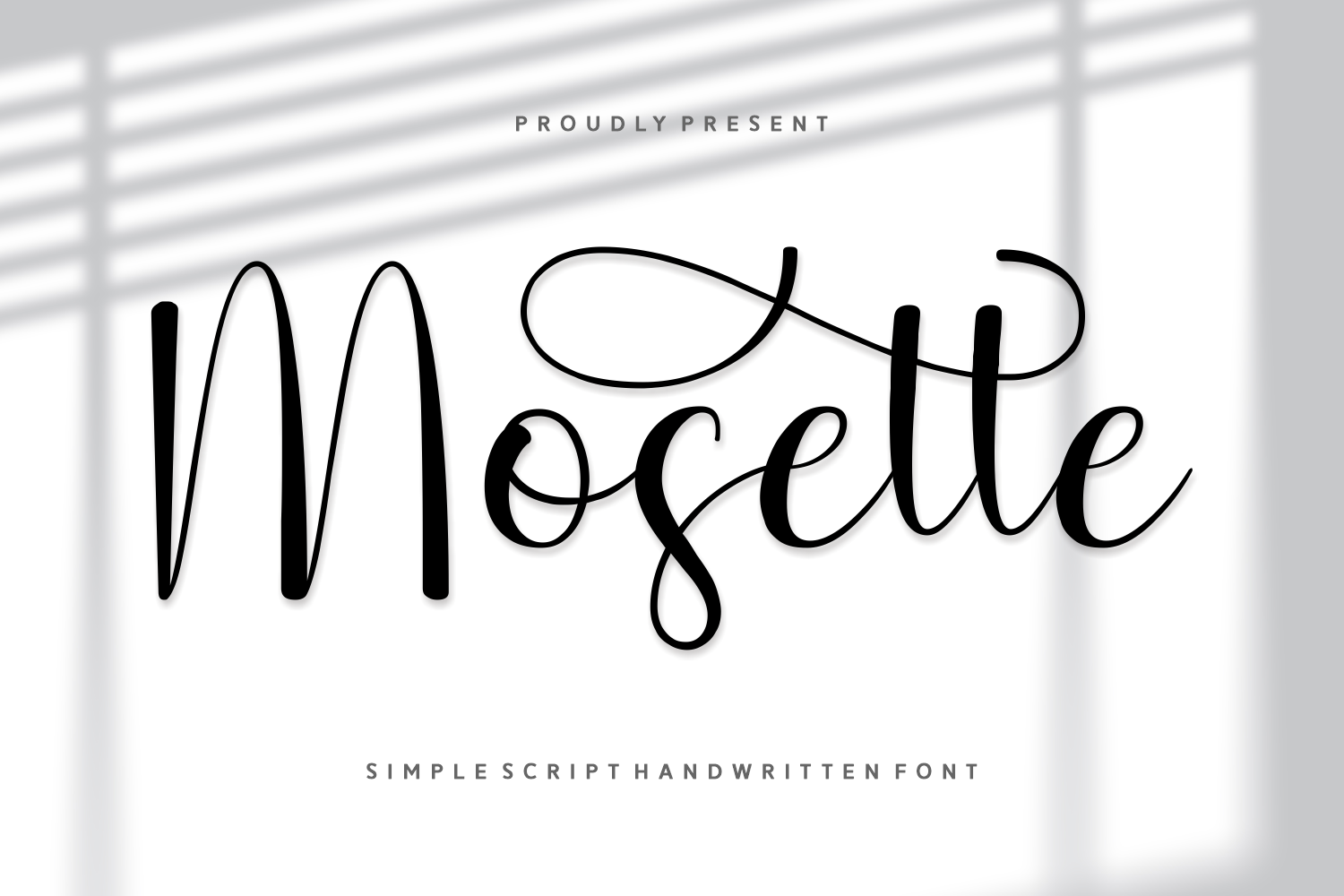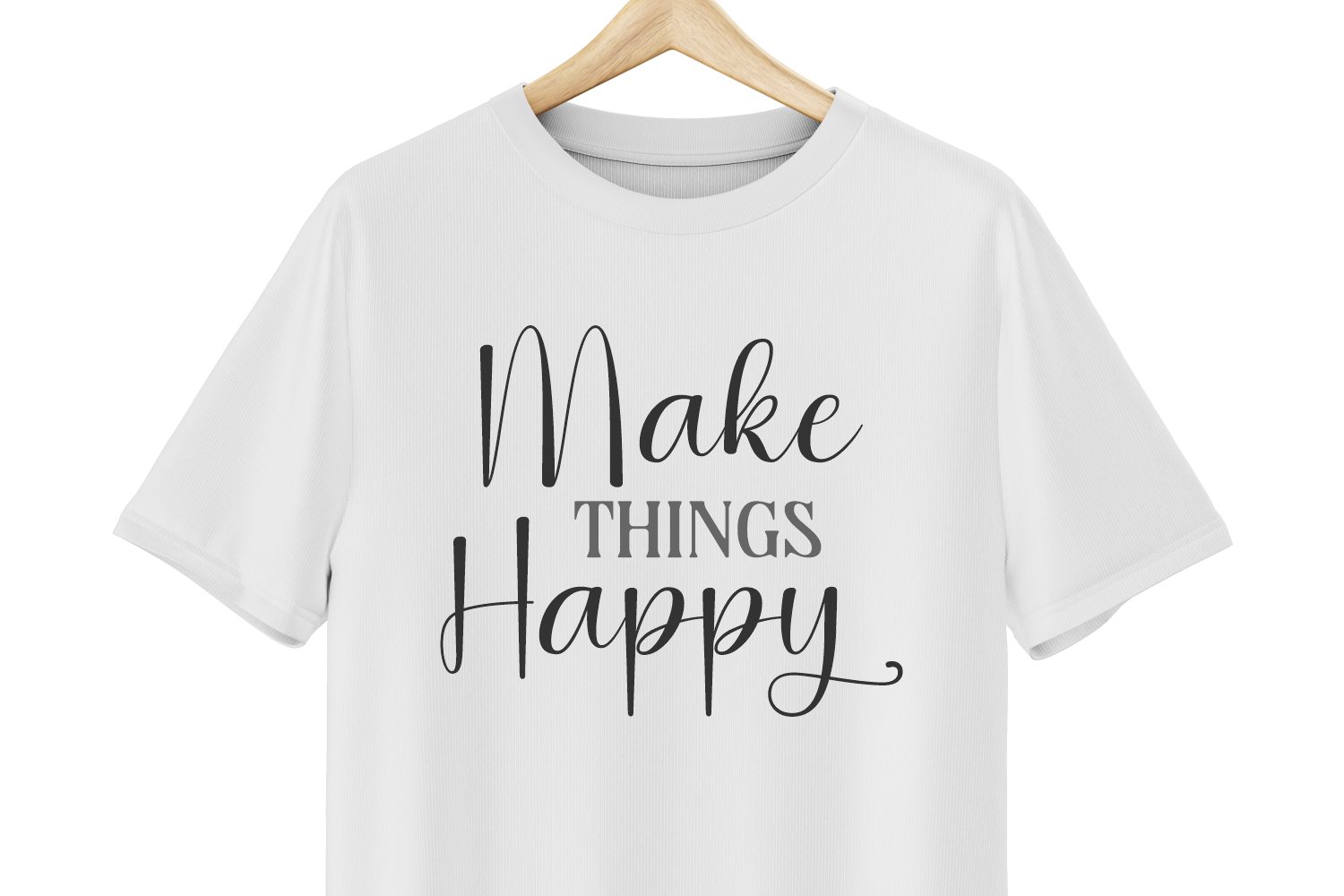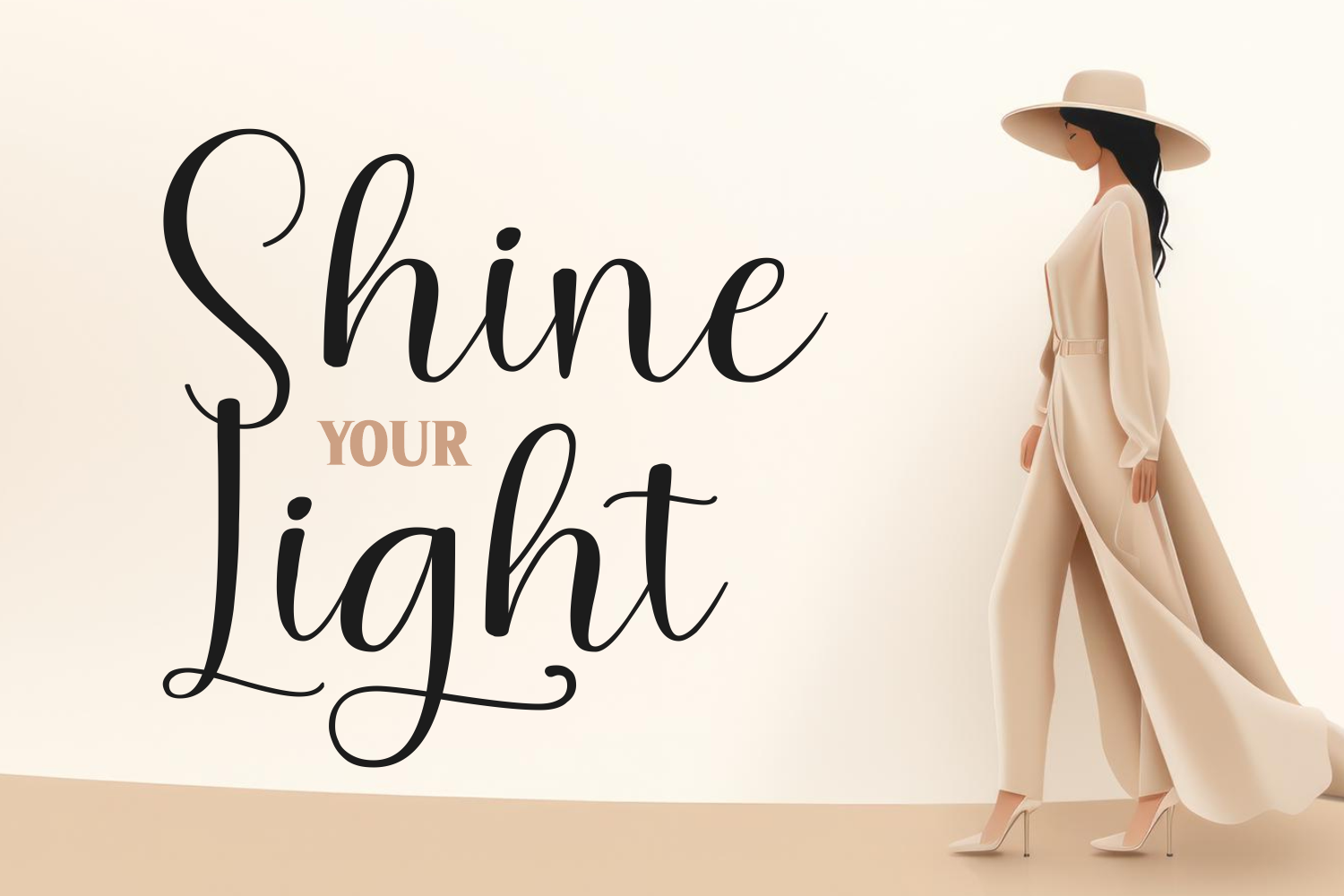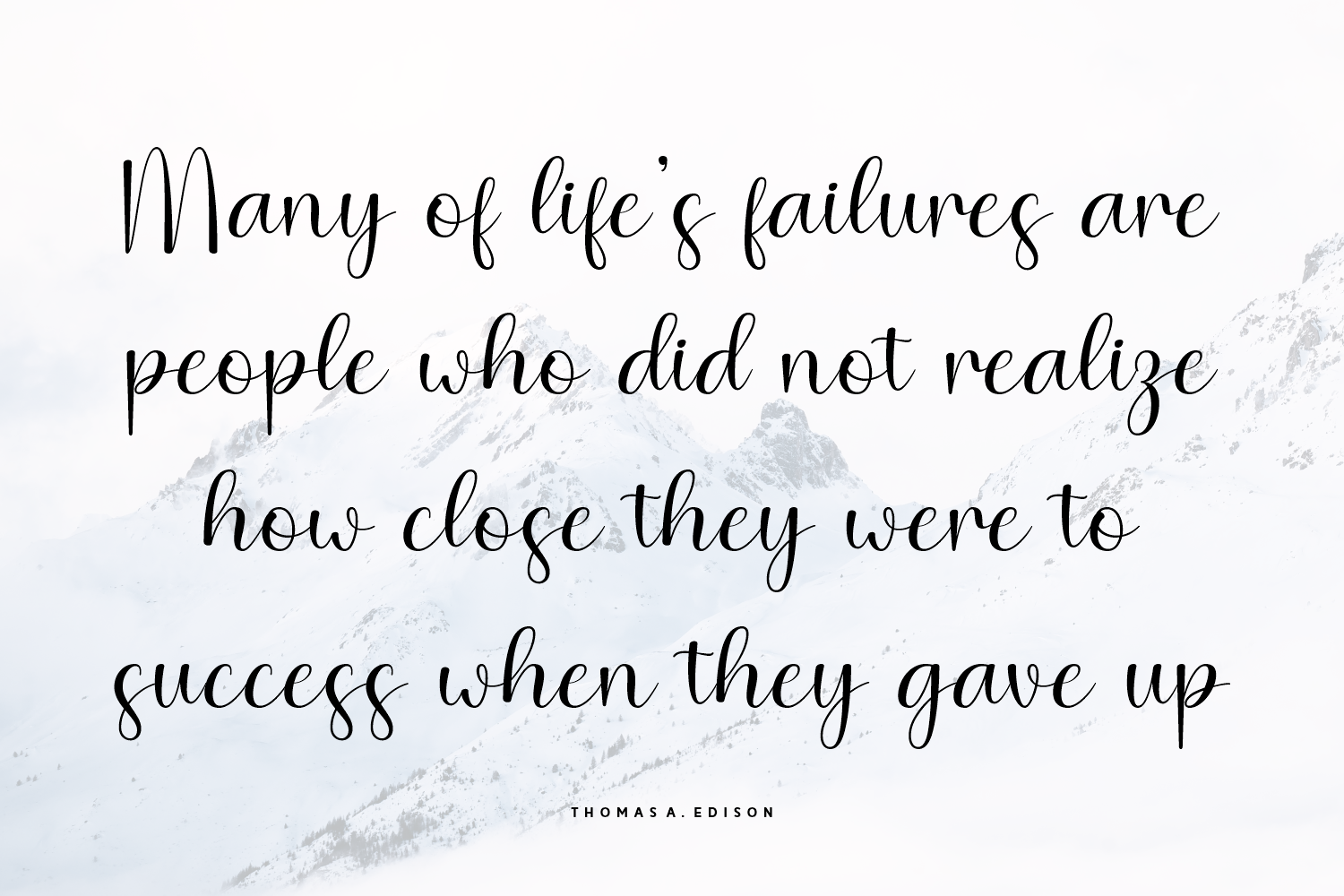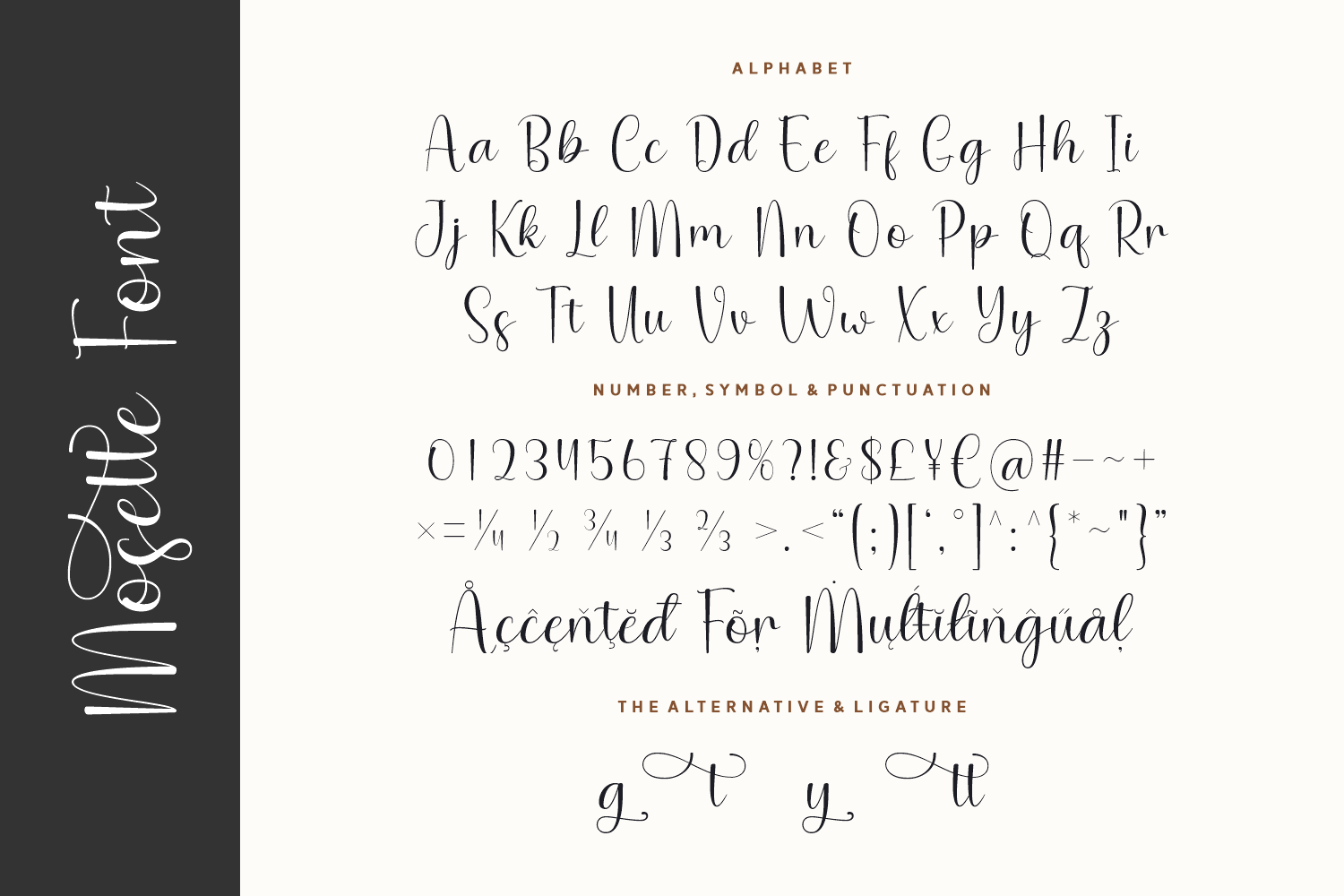
Mosette is a charming and refined handwritten script font that blends simplicity with artistic flair.
Mosette features a complete alphabet, numerals, punctuation, multilingual support, and a selection of graceful ligatures and alternates that bring custom elegance to your work.